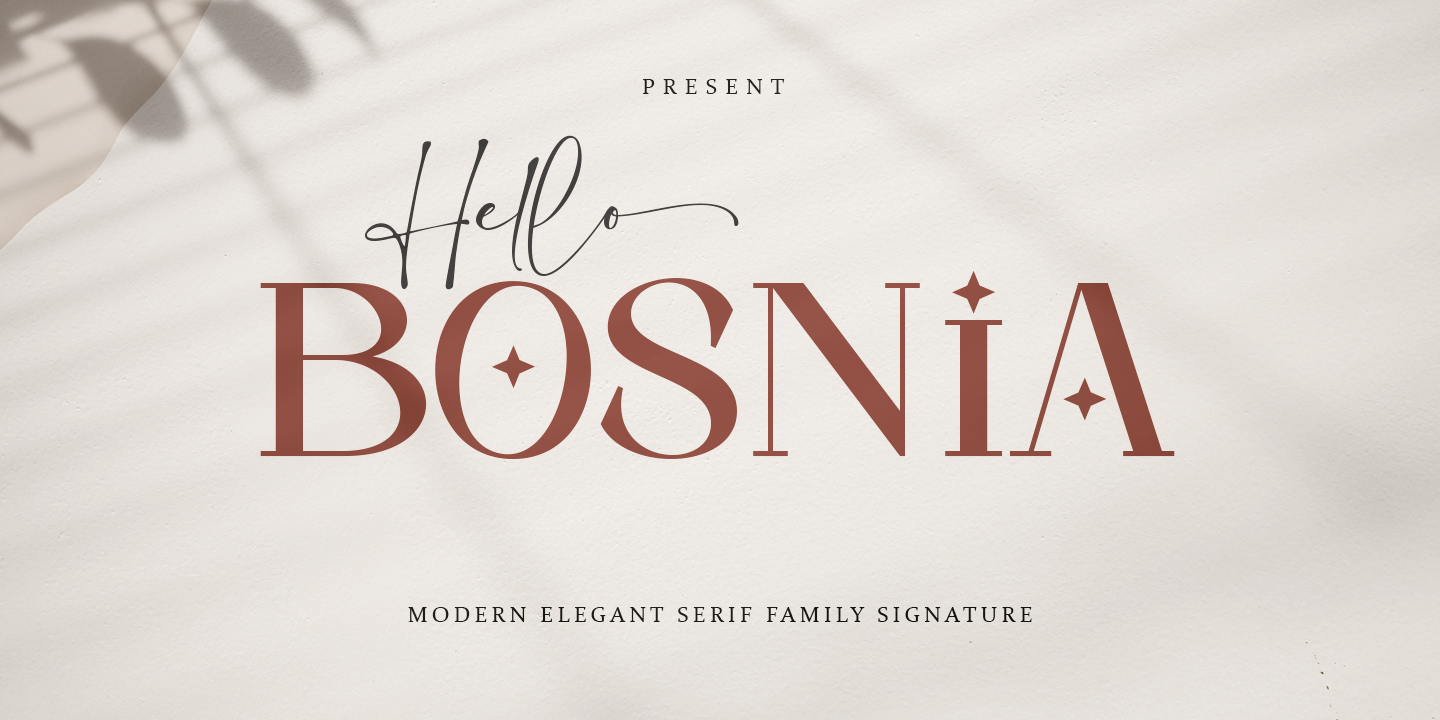
Hello Bosnia Serif Font Free Download – Classic Elegance with a Modern Twist
If you’re seeking a serif font that combines timeless elegance with contemporary flair, Hello Bosnia Serif Font Free Download is an excellent choice. This typeface features refined serifs and clean lines, making it perfect for editorial layouts, branding, book covers, and professional documents.
Hello Bosnia Serif balances traditional style with modern readability, offering versatility for both print and digital projects. Whether you’re designing a sophisticated logo, magazine headline, or website typography, this font adds a polished and trustworthy feel to your work.
Elevate your typography with Hello Bosnia Serif — a font that merges classic beauty and modern usability for outstanding design impact.